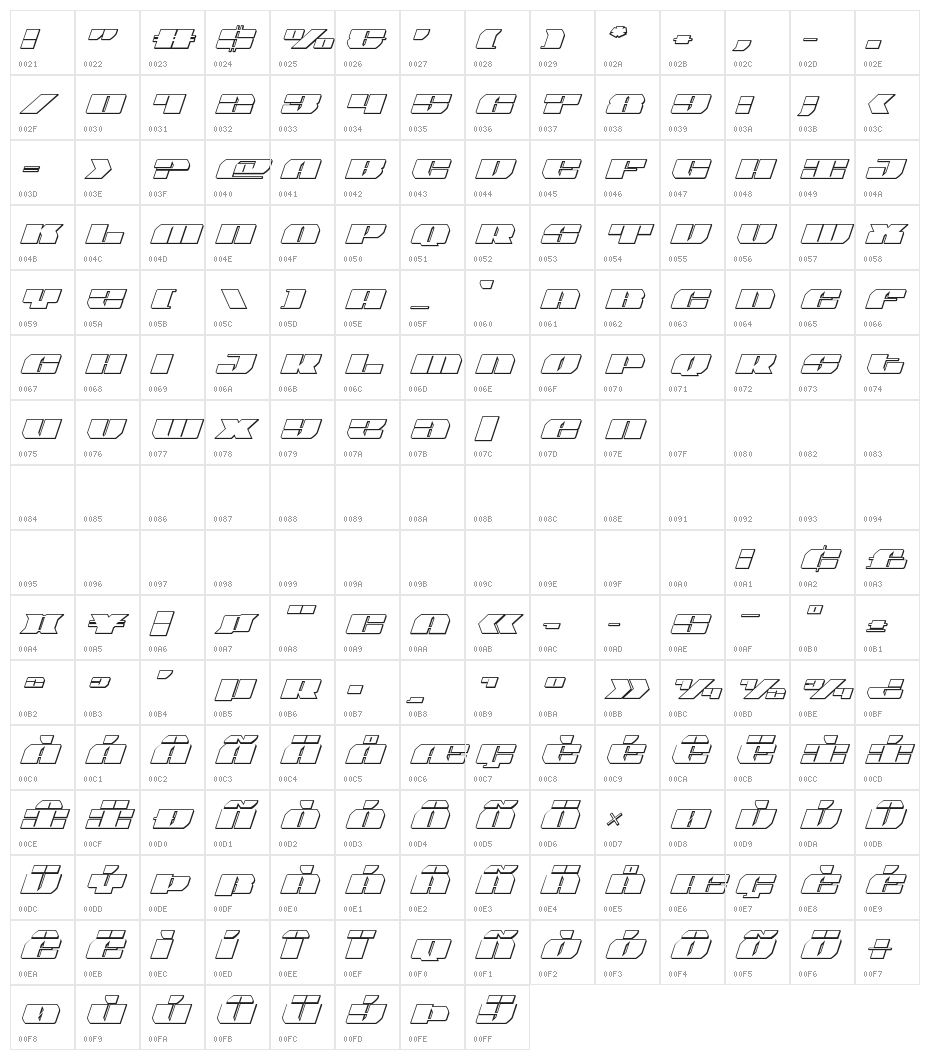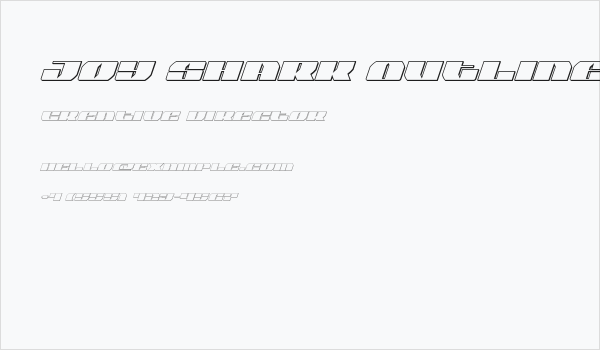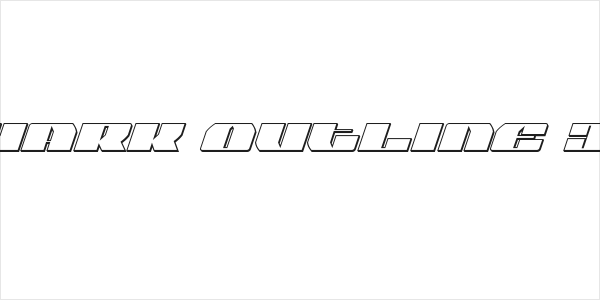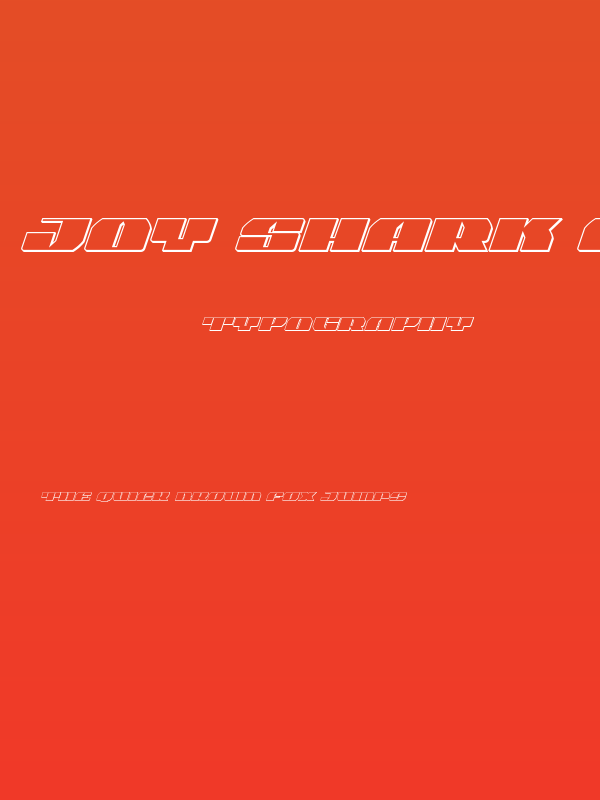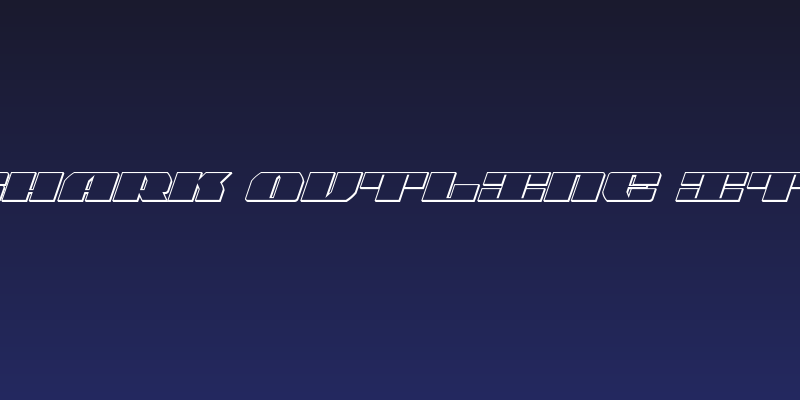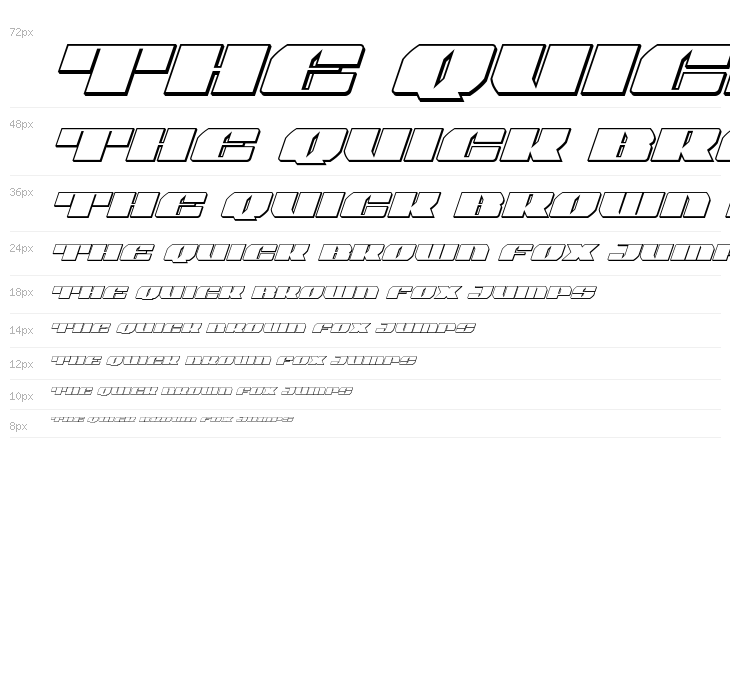
Joy Shark Outline Italic Font
Joy Shark Outline Italic Description
This font features a bold, geometric outline style with a distinct italic slant, giving it a dynamic and futuristic appearance. The characters are constructed with sharp angles and clean lines, creating a sense of movement and energy. The outline design adds a layer of complexity, making it stand out in any design project. The uppercase and lowercase letters maintain a consistent style, while the numerals and special characters complement the overall aesthetic. This font is ideal for projects that require a modern and edgy look, such as technology branding, sports team logos, or video game titles.
| Use Case | Logos, Headlines |
| Proposed Projects | Ideal for technology branding, sports logos, video game titles, and futuristic designs. |